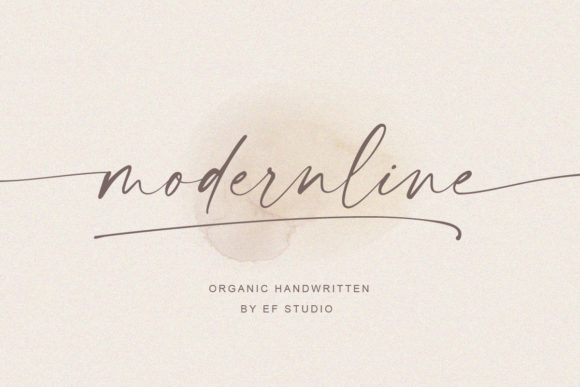
Introducing the Modernline Font, the perfect addition to your script font collection! Created by Ef Studio, this font is the epitome of elegance and is sure to make a statement in any context. With its charming style, Modernline is the best font for signature words, adding a personal touch to any project.
Not only does Modernline look stunning as a standalone headline, but it also shines when used on busy backgrounds, making it a versatile addition to any designer's toolkit. This handwritten font is PUA encoded, which means you can access all of the glyphs and swashes with ease, adding even more variety to your designs.
With its varying baseline, smooth lines, gorgeous glyphs, and stunning alternates, Modernline is the perfect font for anyone looking to elevate their design game. Whether you're designing wedding invitations, logos, or social media posts, Modernline will add a touch of class and sophistication to any project.